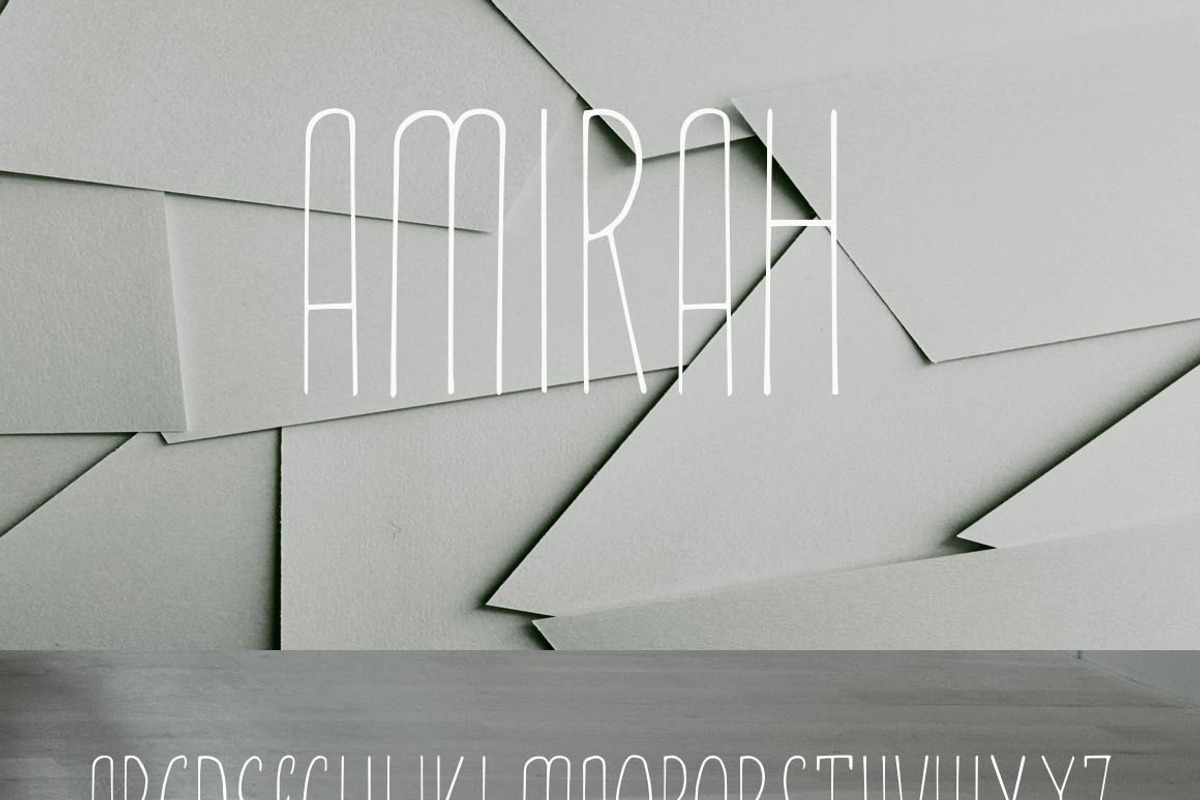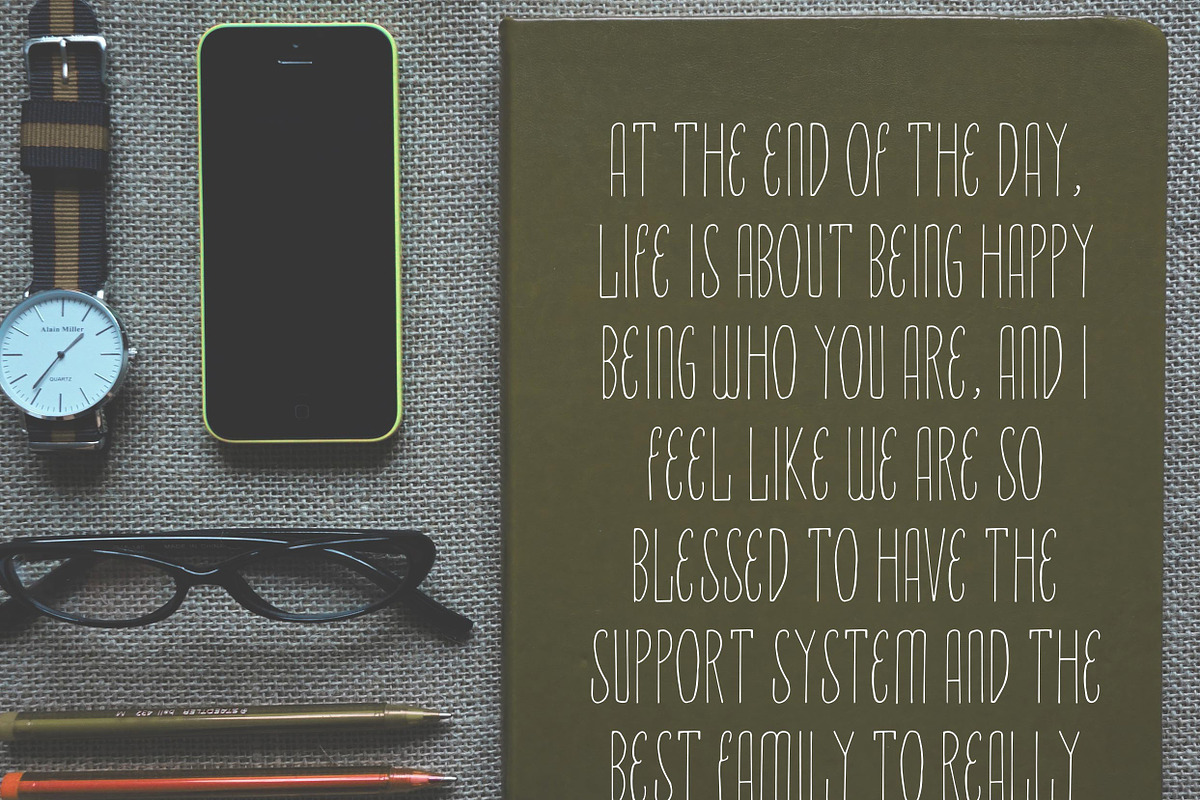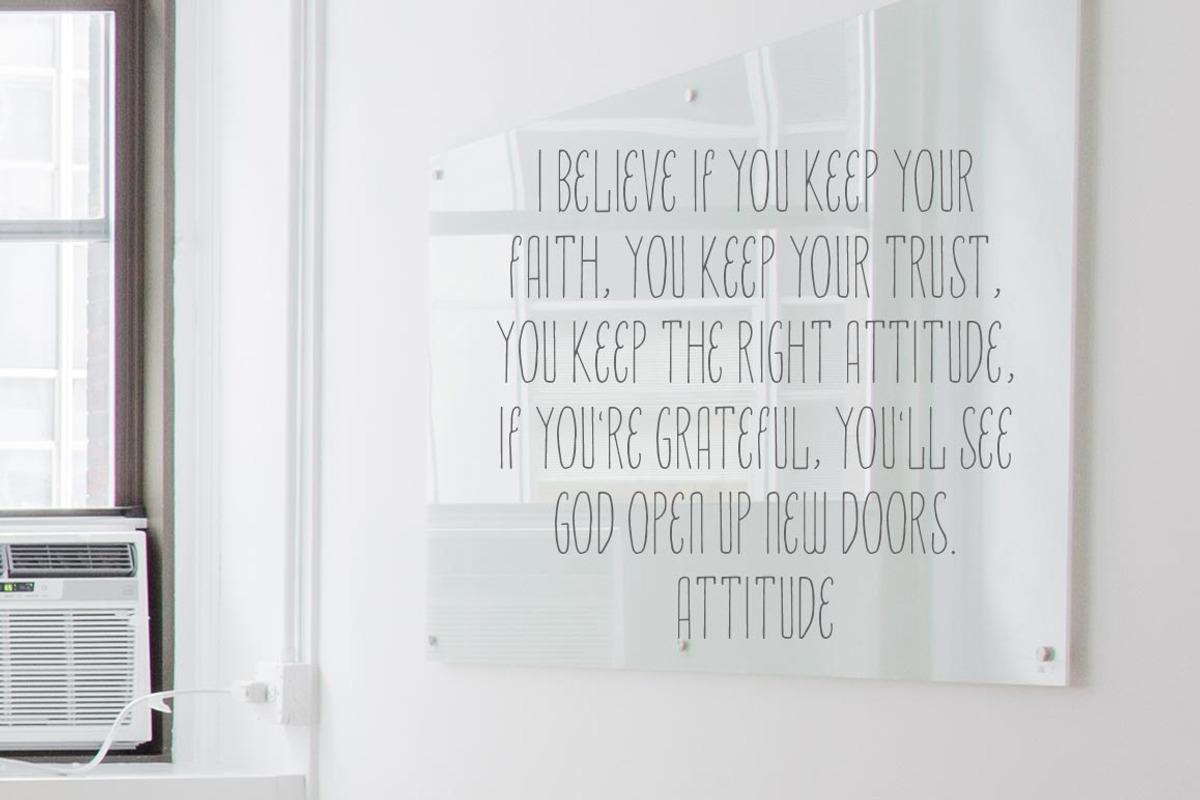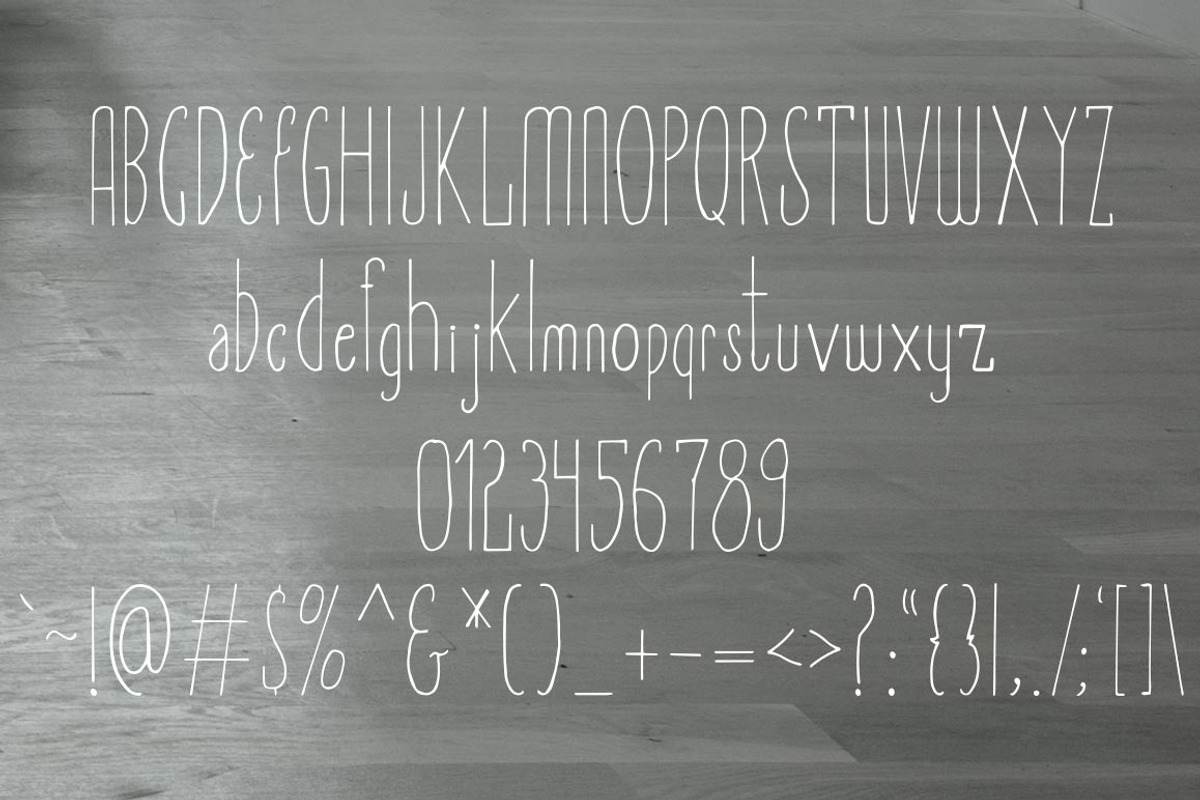
Amirah Display Font
Amirah Display Font by Creativetacos is a font selected for branding, posters, packaging, typography.
Why Amirah Display Font is worth a look
Amirah Display Font by Creativetacos fits naturally into Branding, posters, packaging, typography.